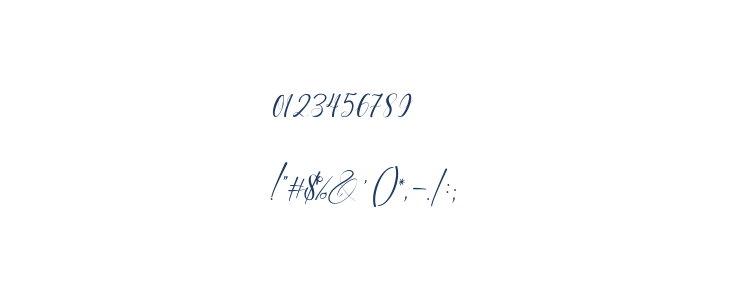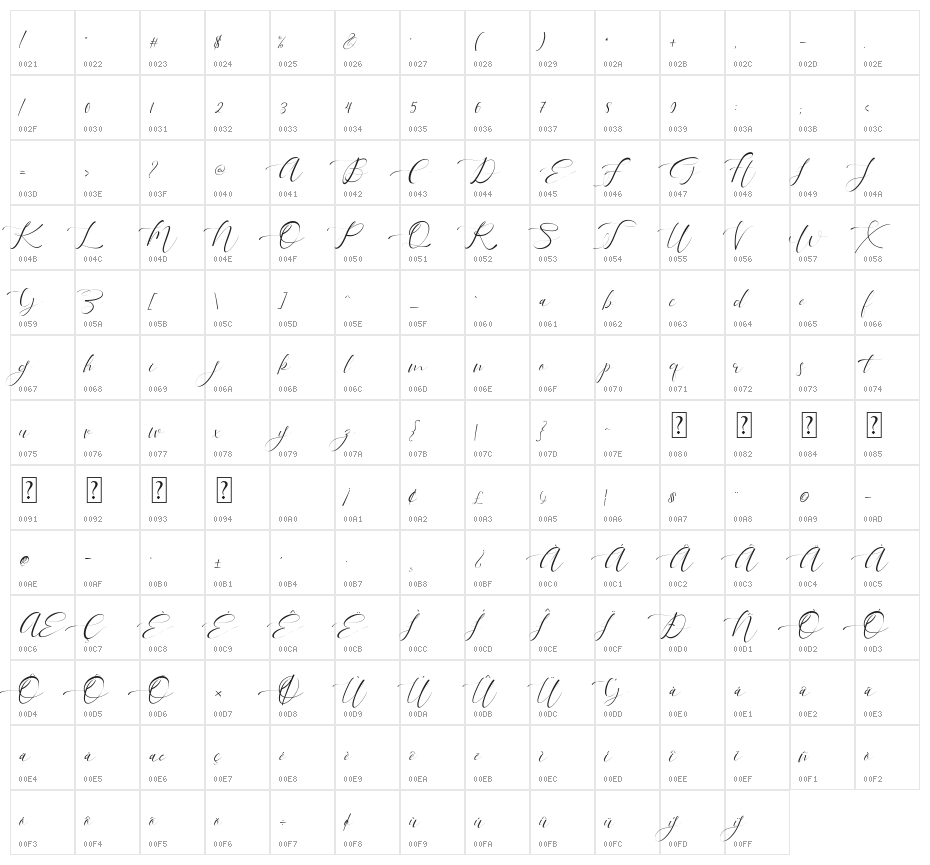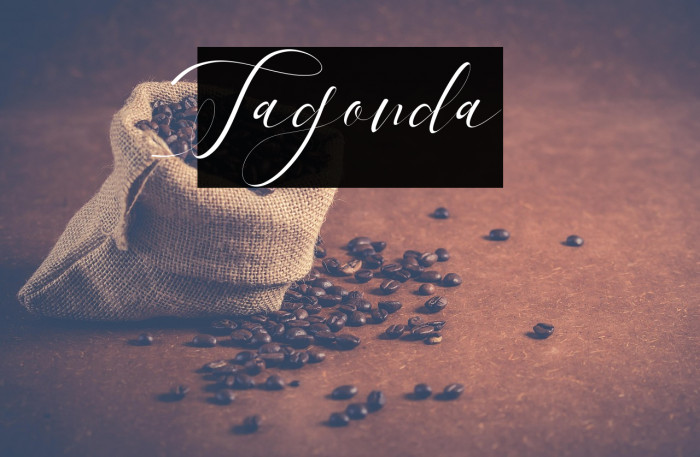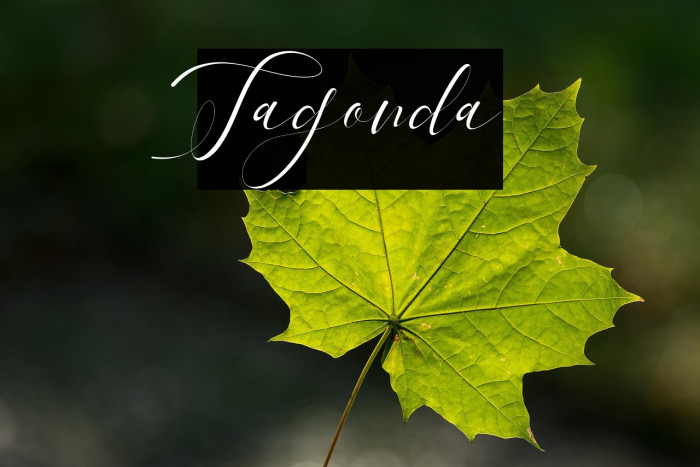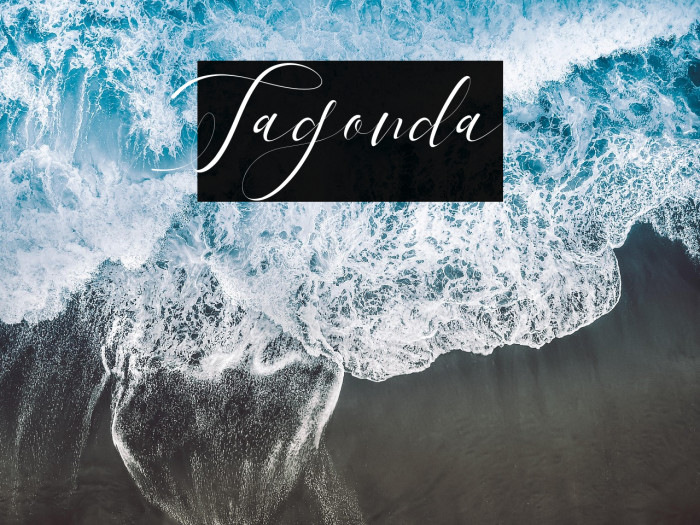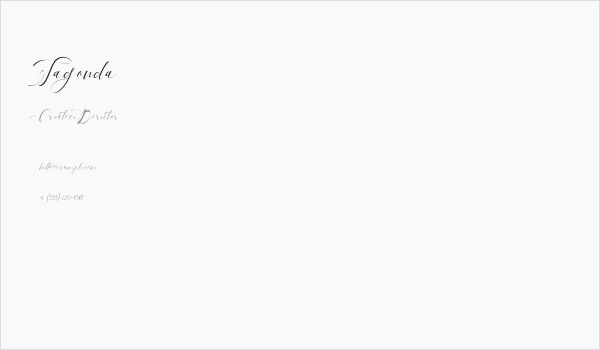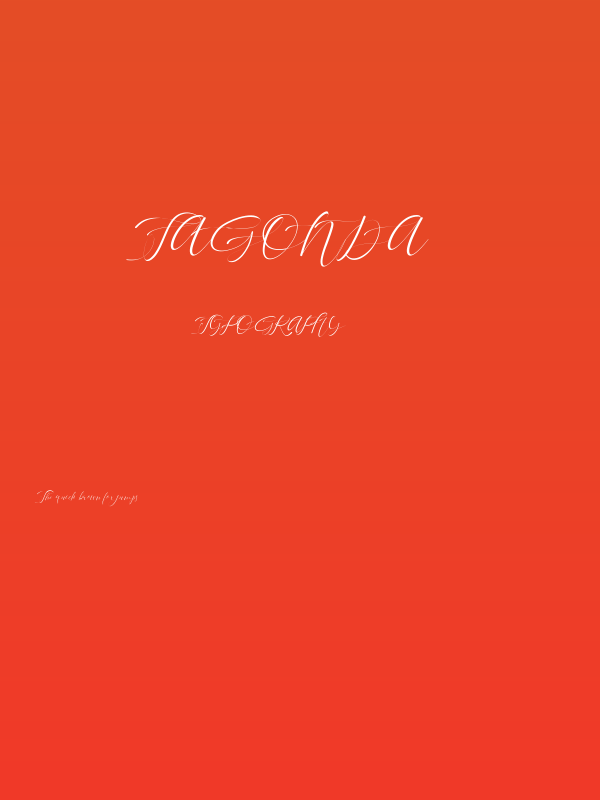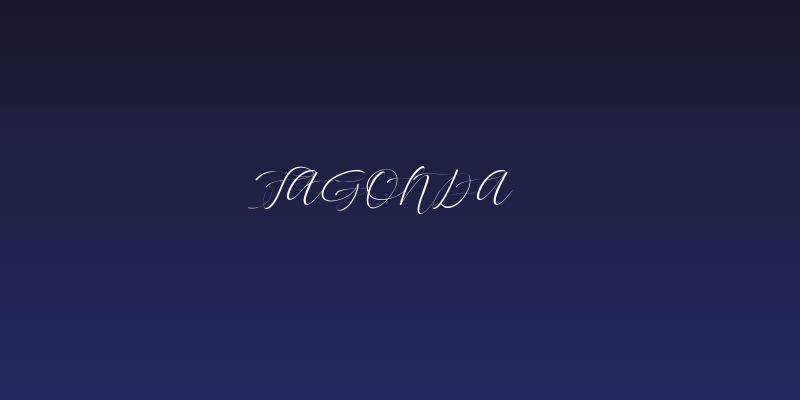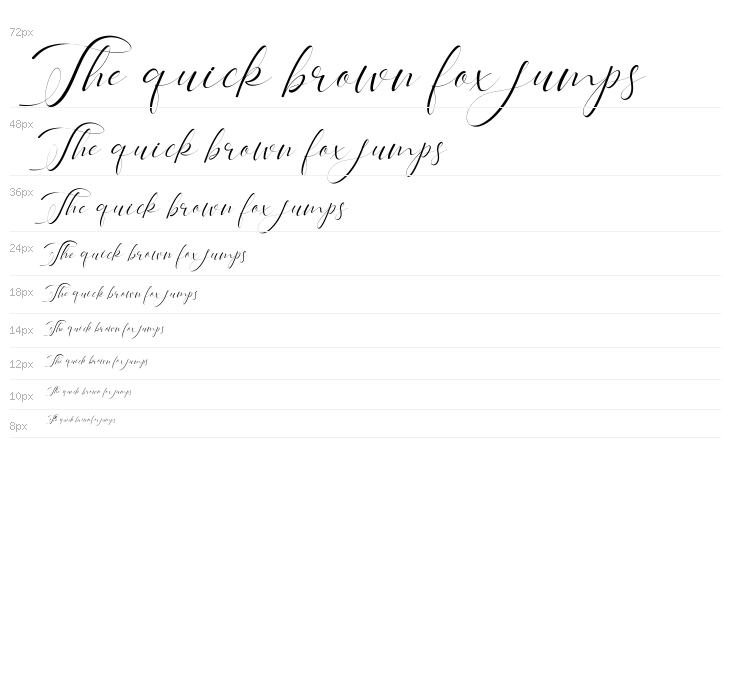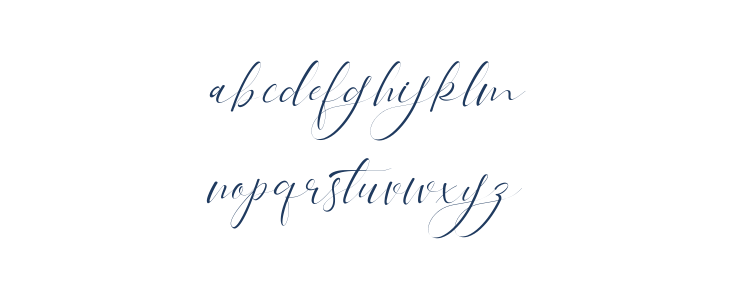
Tagonda Font
Tagonda Description
This elegant script font features graceful, flowing lines and intricate swashes that give it a sophisticated and artistic appearance. The characters are delicately crafted with high contrast between thick and thin strokes, enhancing its refined look. The uppercase letters are particularly ornate, with extended flourishes that add a touch of luxury and flair. The lowercase letters maintain a consistent style, complementing the uppercase with their own subtle curves and loops. The numerals and special characters are designed to match the overall aesthetic, ensuring a cohesive appearance across all text. This font is perfect for projects that require a touch of elegance and sophistication.
| Proposed Projects | Ideal for wedding invitations, luxury branding, elegant packaging, and artistic posters. |